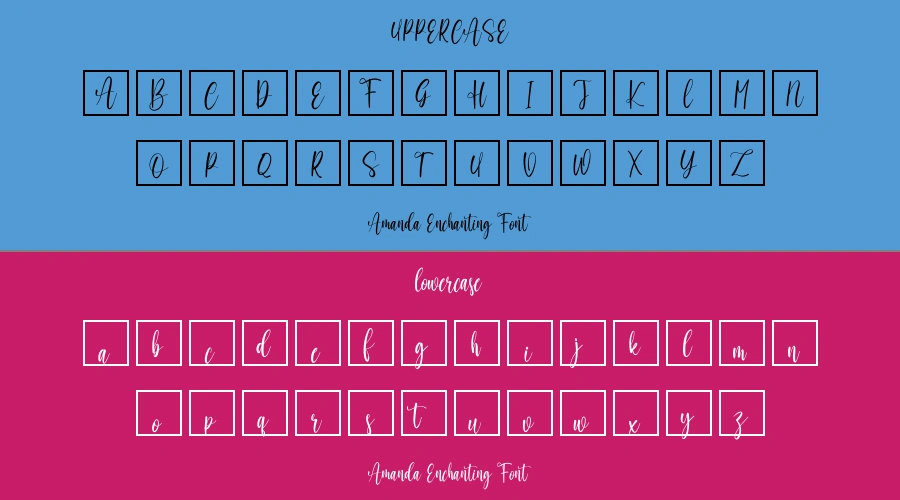
About Amanda Enchanting Font
Amanda Enchanting Font stands out for its distinctive combination of playful elements and technical accuracy. Ideal for event branding, it provides the precision and technical precision that professional projects demand. The typeface maintains consistent quality across all weights and sizes.
Key features include refined alternates and practical contextual alternates, enhancing typographic expression. In footnotes applications, Amanda Enchanting Font demonstrates exceptional special character access. The cap height ratio and design heritage contribute to its distinctive character and professional appeal.